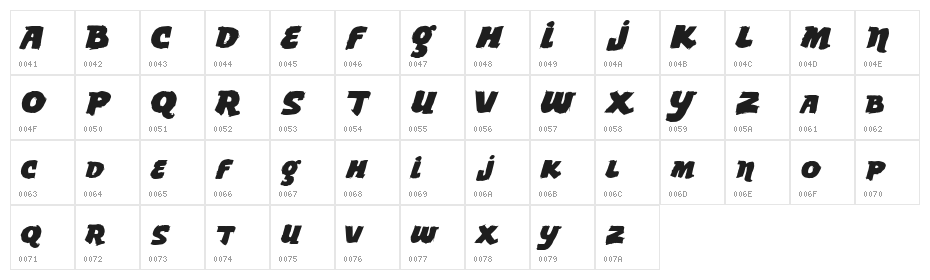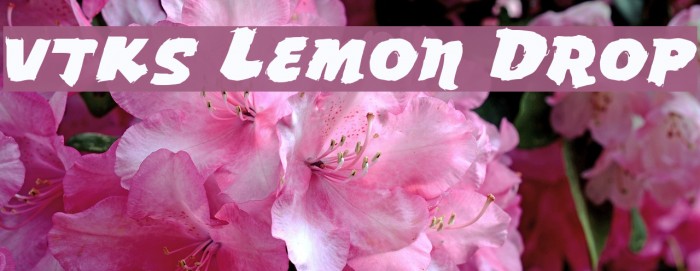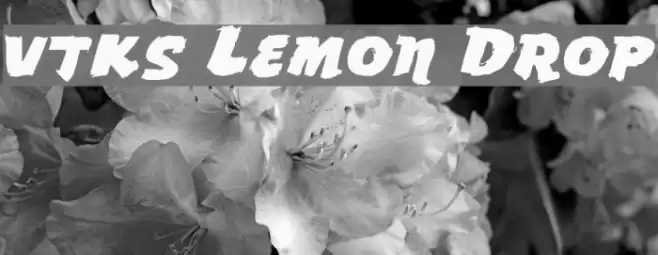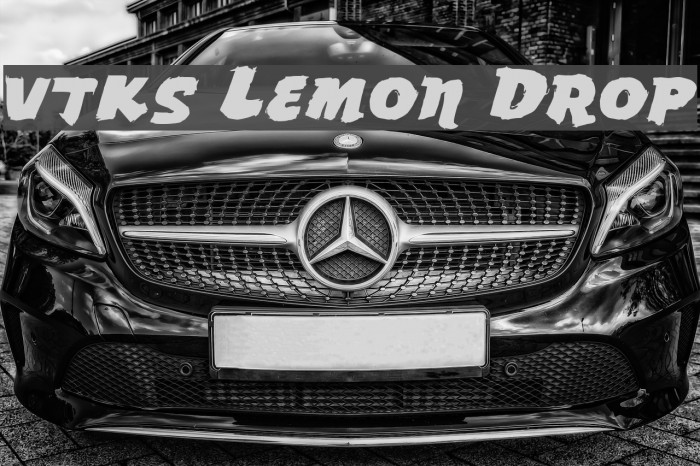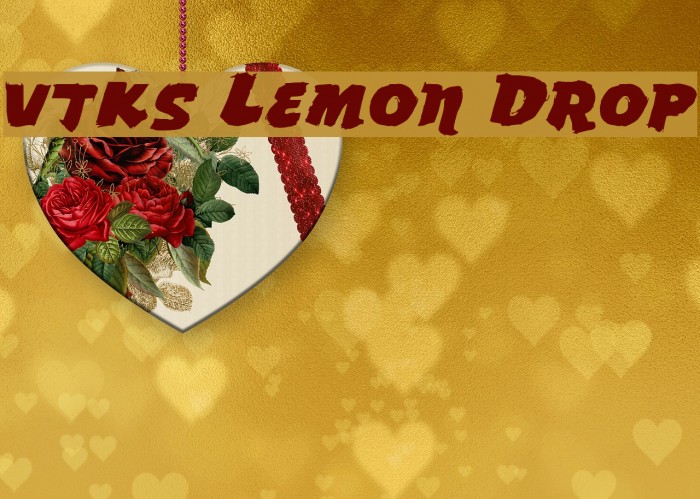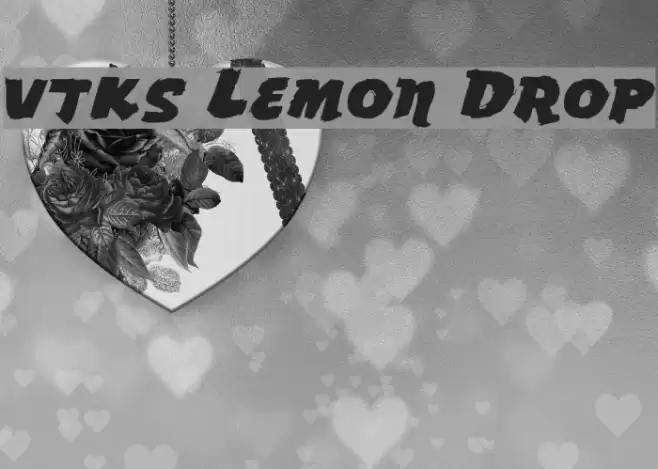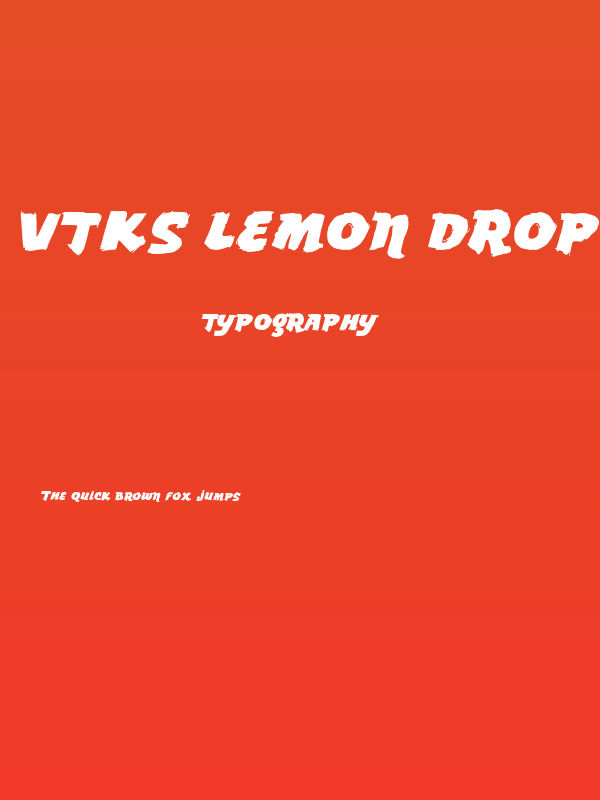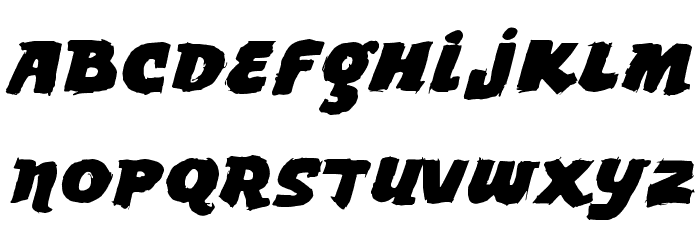
vtks Lemon Drop Font
vtks Lemon Drop Description
This font features a bold and dynamic style with a strong presence. The characters are designed with a brush-like effect, giving them a hand-painted appearance. The strokes are thick and uneven, adding a sense of movement and energy to the text. The uppercase and lowercase letters maintain a consistent style, with slightly exaggerated curves and angles that enhance the font's expressive nature. The numbers and special characters are crafted to match the overall aesthetic, ensuring a cohesive look across all text elements. This font is ideal for projects that require a bold and artistic touch.
| Proposed Projects | Ideal for posters, logos, branding, and any design needing a bold, artistic flair. |